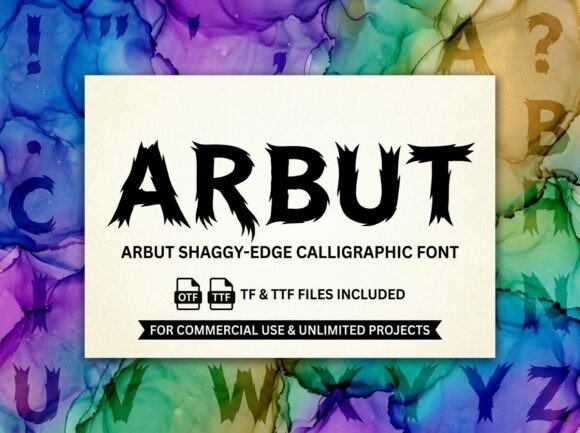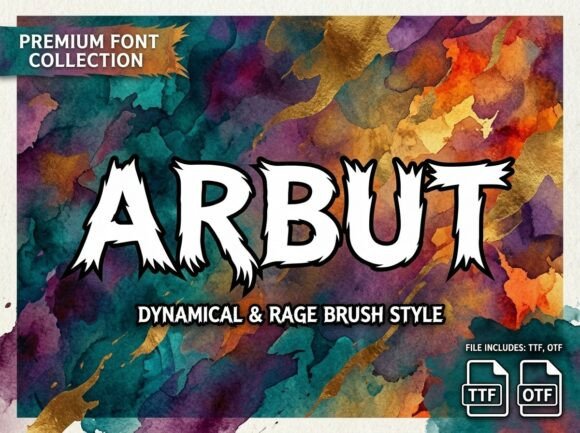
Unleash the Wild Side with Arbut Font: A Fearsome Display Typeface
In the realm of typography, few fonts manage to evoke the essence of the wild and fearsome. Arbut Font is one such typeface that embodies an aggressive display, perfect for designers and crafters looking to add an edge to their projects. With its bold, jagged letterforms and unique textures, Arbut is poised to become the go-to choice for those seeking to make a statement.
The Inspiration Behind Arbut
Arbut Font draws inspiration from the darker corners of fantasy and the wild. Its design is characterized by rhythmic, hand-drawn “fur-and-fang” textures and splintered edges, giving it a primal personality that’s hard to ignore. This font is not just a collection of letters; it’s an experience, a journey into the wild and wicked world of dark fantasy and modern edgy branding.
Key Features of Arbut Font
- Bold and Jagged Letterforms: Arbut’s letters are not just bold; they’re aggressively so, making them perfect for headlines, titles, and statements that demand attention.
- Hand-Drawn Textures: The unique “fur-and-fang” textures give Arbut a handcrafted feel, bridging the gap between traditional illustration and modern design.
- Splintered Edges: The edges of Arbut’s letters are not smooth; they’re splintered, adding to the font’s wild and fearsome appeal.
- Heavy Structural Weight: Arbut’s weight is substantial, making it highly legible even at larger sizes, perfect for posters, banners, and social media headers.
Use Cases for Arbut Font
Arbut’s versatility might surprise you. While it’s aggressive and bold, it’s also surprisingly adaptable. Here are some of the best use cases for Arbut Font:
- Independent Alternative Apparel Labels: For brands that want to stand out with a bold statement, Arbut offers a typographic solution that’s both eye-catching and memorable.
- Gothic Horror Book Titles: Add a touch of darkness and mystery to your book covers with Arbut, making them irresistible to fans of the genre.
- Edgy Gaming Team Logos: For gaming teams that want to project a fearsome and competitive image, Arbut provides a font that’s both modern and intimidating.
- High-Impact Social Media Headers: Stand out in the crowded social media landscape with Arbut, making your posts, stories, and headers hard to ignore.
Why Choose Arbut Font?
Choosing a font for your project can be a daunting task, given the vast options available. So, why choose Arbut? Here are a few compelling reasons:
- Uniqueness: Arbut’s unique blend of boldness, texture, and edge makes it a one-of-a-kind typeface that can set your project apart.
- Versatility: Despite its aggressive nature, Arbut can be used across various mediums, from digital platforms to print.
- Legibility: Arbut’s design ensures it’s not just visually striking but also highly legible, making it functional as well as beautiful.
Arbut Font is more than just a typeface; it’s a statement. It’s for those who dare to be different, who want to evoke a sense of the wild and fearsome in their designs. Whether you’re a designer looking for a bold font for your next project or a crafter seeking inspiration for your handmade goods, Arbut offers a unique blend of aggression and elegance. Unleash the wild side of your creativity with Arbut, and make your mark with a font that’s as fearsome as it is beautiful.